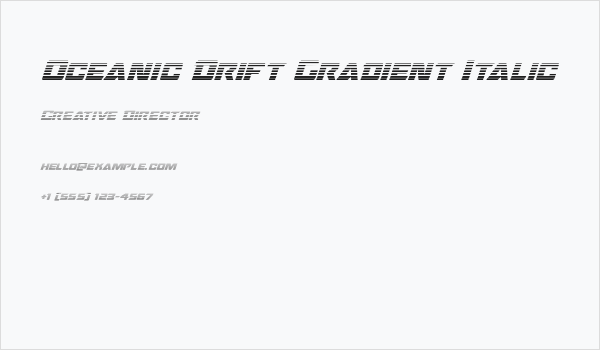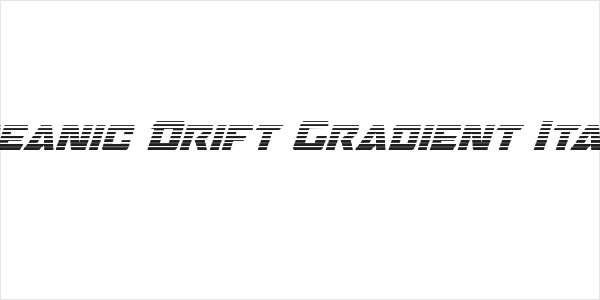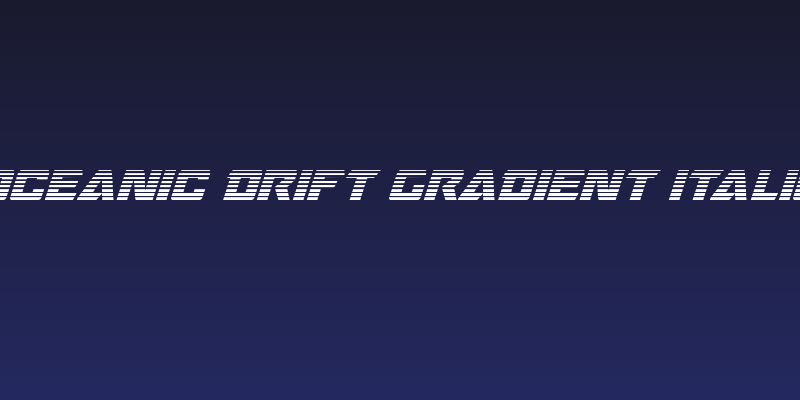
Oceanic Drift Gradient Italic Font
Oceanic Drift Gradient Italic Description
This font features a dynamic and modern design with a distinct italic slant, creating a sense of motion and speed. The characters are composed of horizontal lines that give a gradient-like effect, enhancing the futuristic and digital aesthetic. The uppercase and lowercase letters maintain a consistent style, with sharp angles and a bold presence. The numerals and special characters follow the same design principles, ensuring uniformity across all elements. This font is ideal for projects that require a contemporary and energetic look.
| Proposed Projects | Ideal for tech branding, sports team logos, futuristic posters, and digital media. |